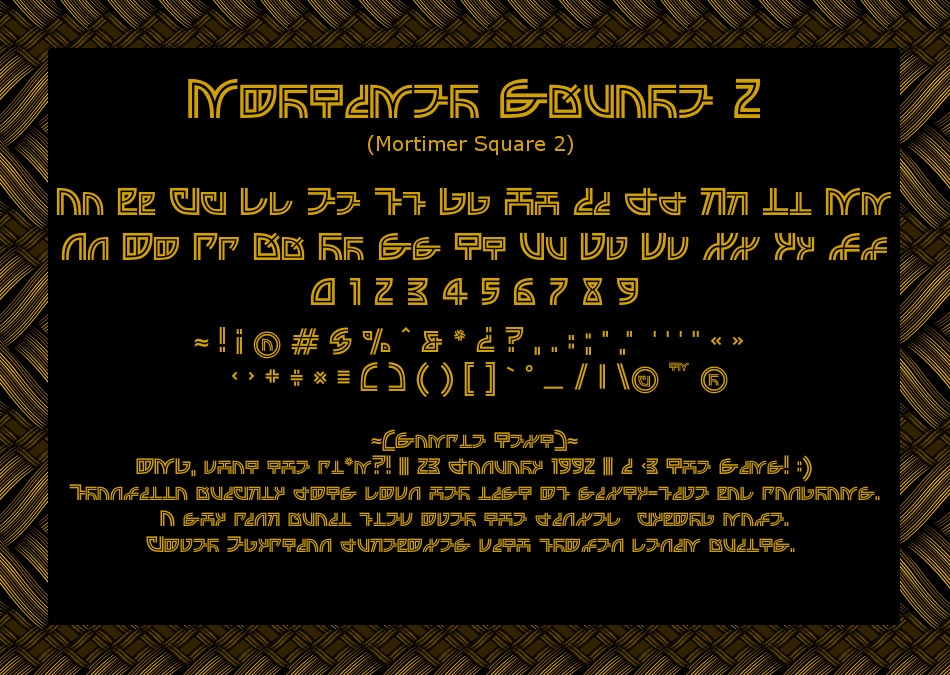
Simlish Fonts - Mortimer Squared
Mortimer Square Solid: An inline-less version of Mortimer Square 2.
The ~{Sample Text}~ at the bottom of the preview pics reads:
OMG, what the pl*m?! || 23 January 1992 || I <3 The Sims!
Franzilla quickly jots down her list of sixty-five bad pangrams.
A shy pink quail flew over the jinxed cyborg maze.
Cover Egyptian jukeboxes with frozen denim quilts.